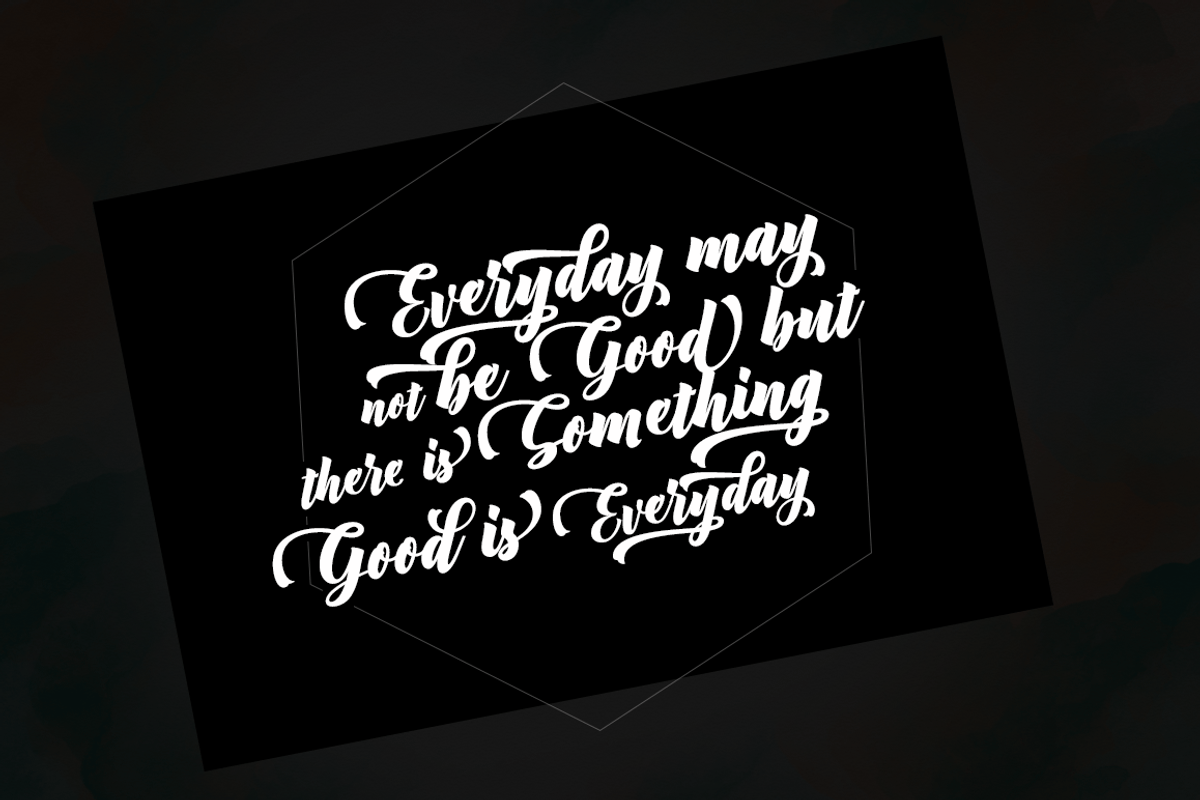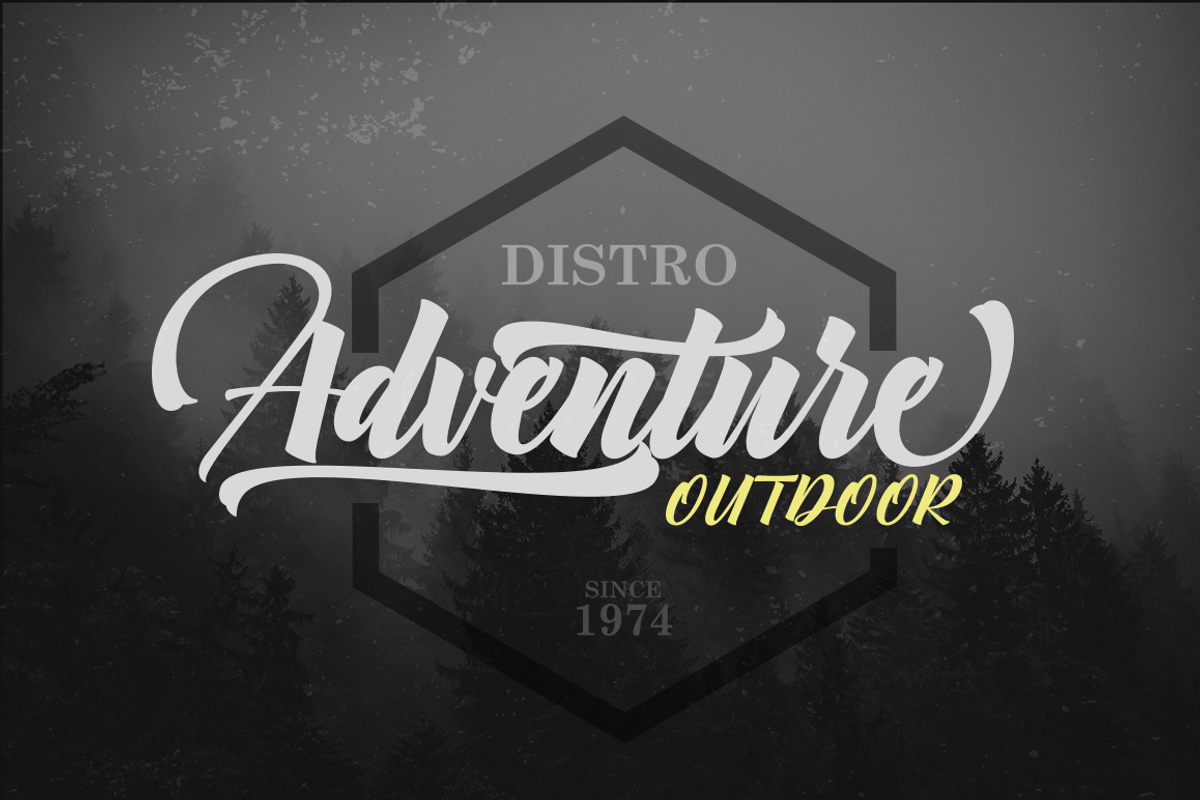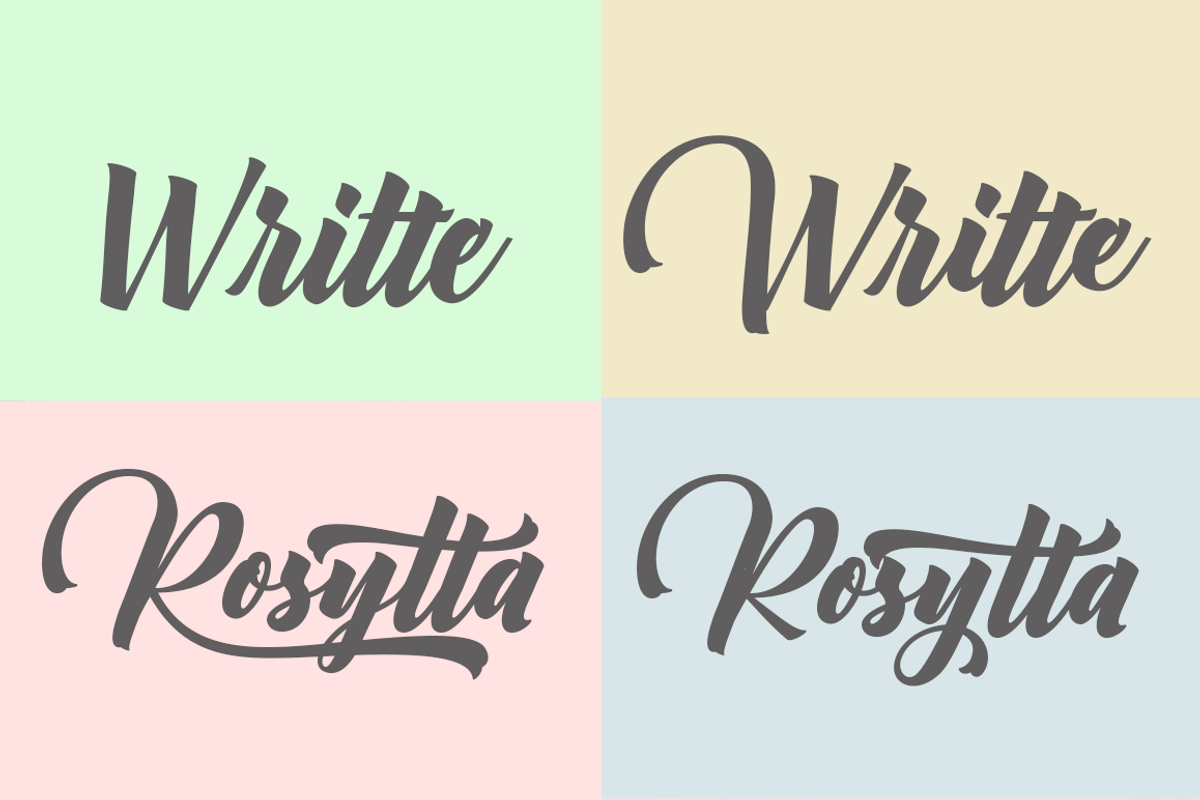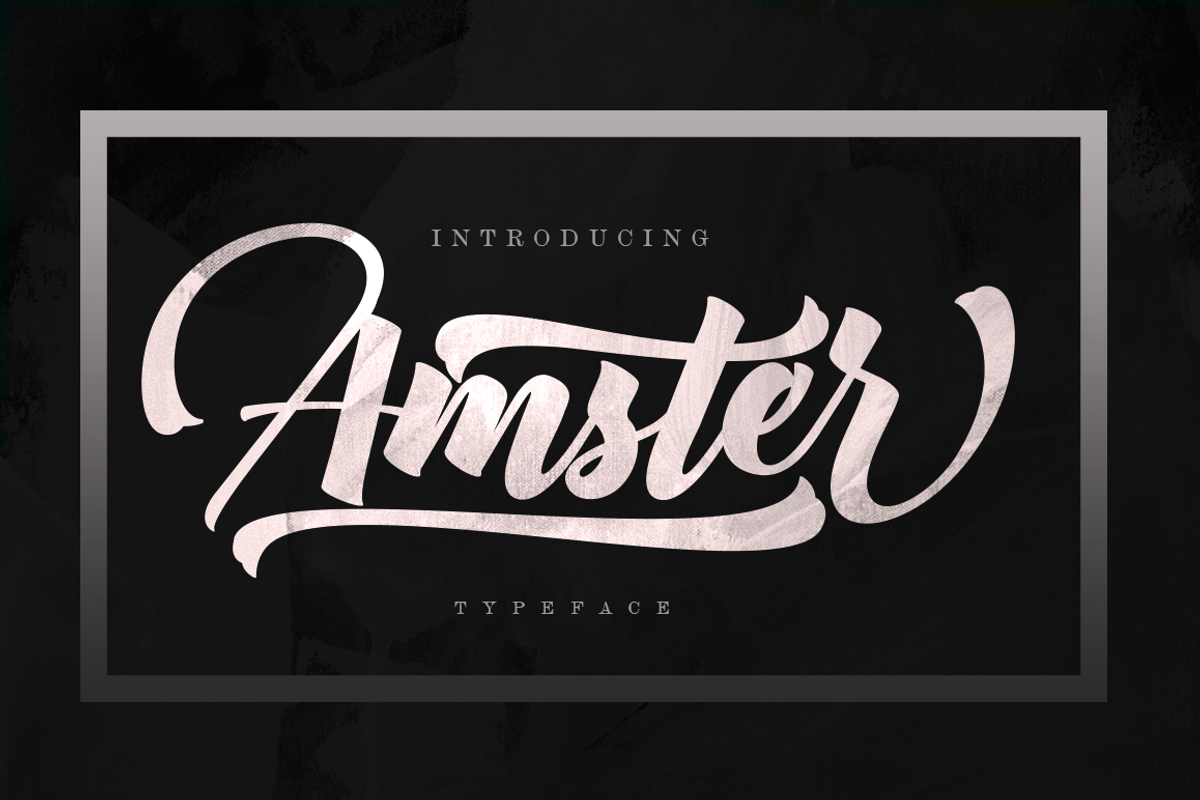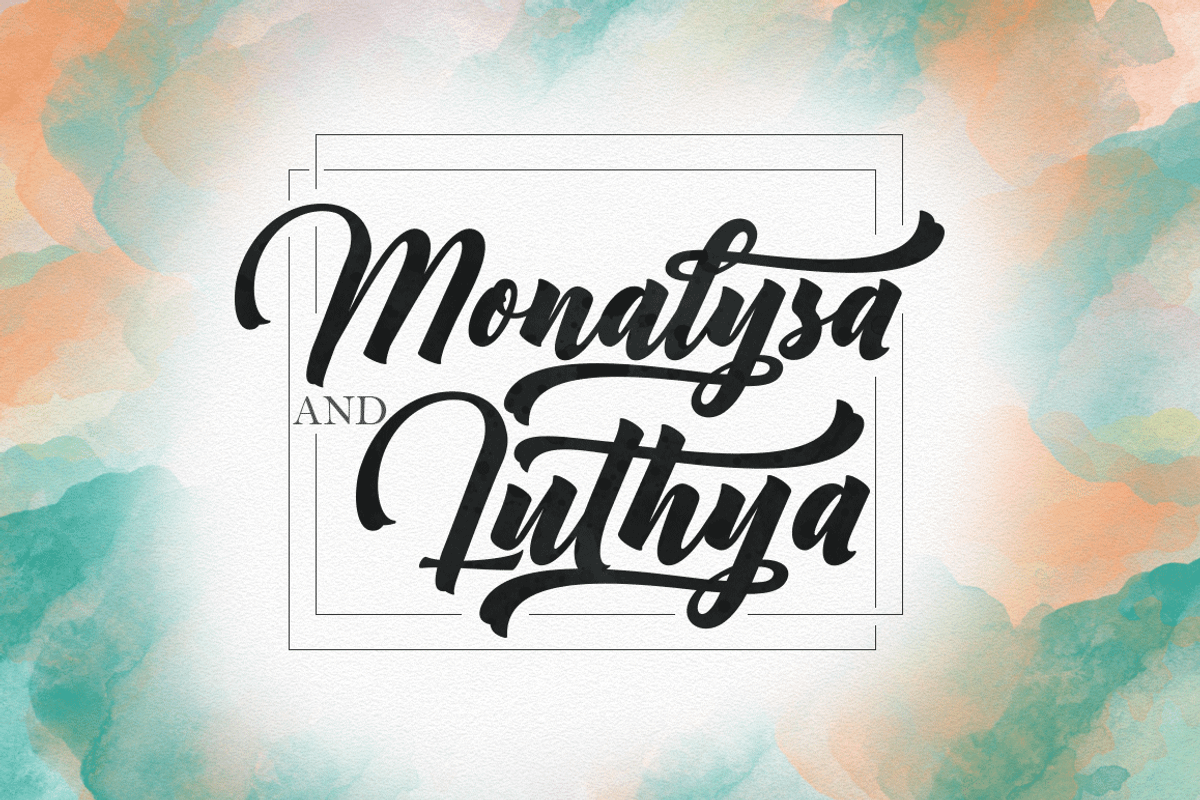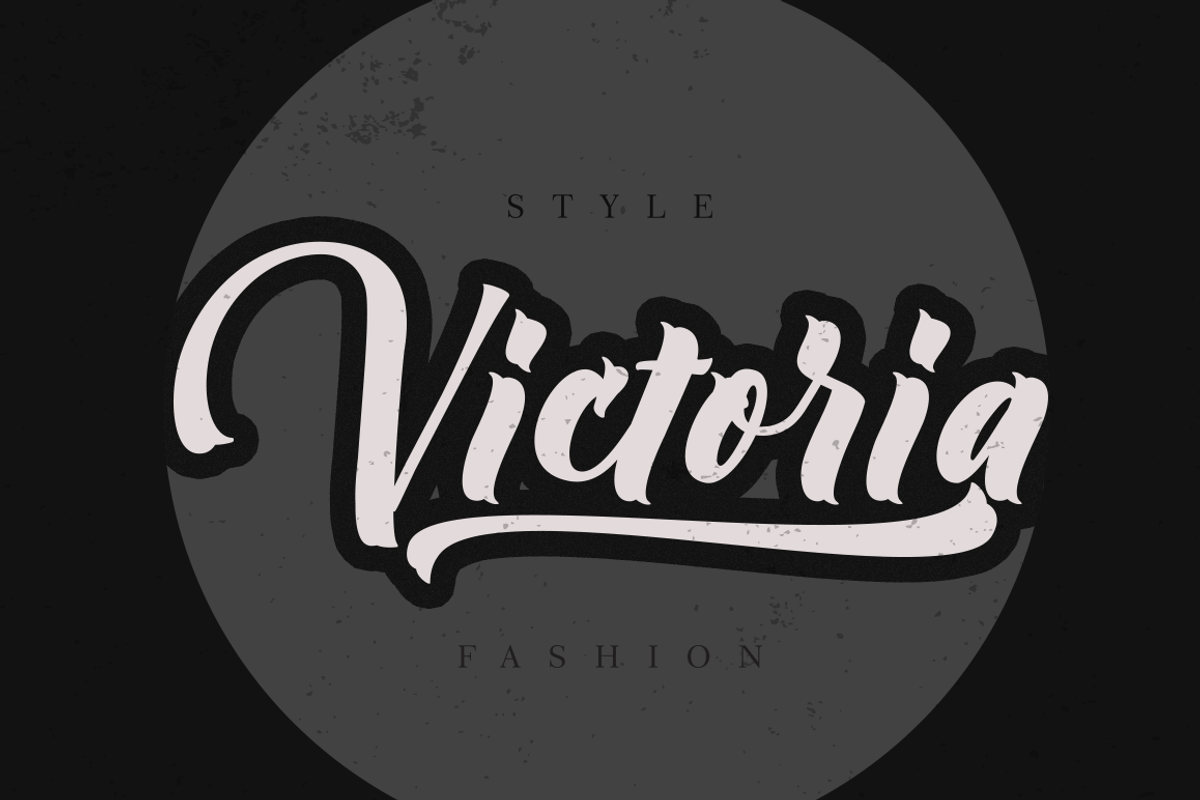
Amster//Calligraphy Font
Amster is a font bold, so, brush script that is beautiful and unique, it is a model of modern calligraphy typefaces, in combination with a calligraphy writing style.
Can be used for various purposes.such as headings, logos, wedding invitation, t-shirt, letterhead, lable, news, posters, badges etc. To enable the OpenType Stylistic alternates, you need a program that supports OpenType features such as Adobe Illustrator CS, Adobe Indesign & CorelDraw X6-X7.